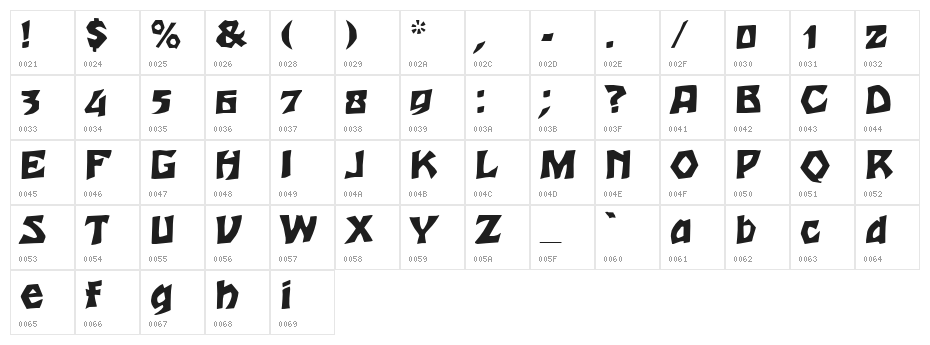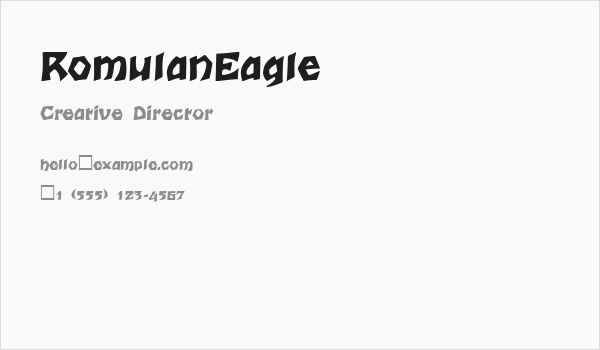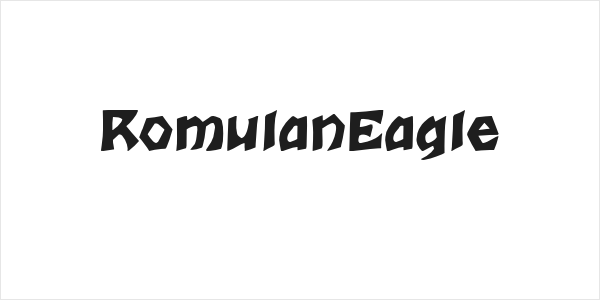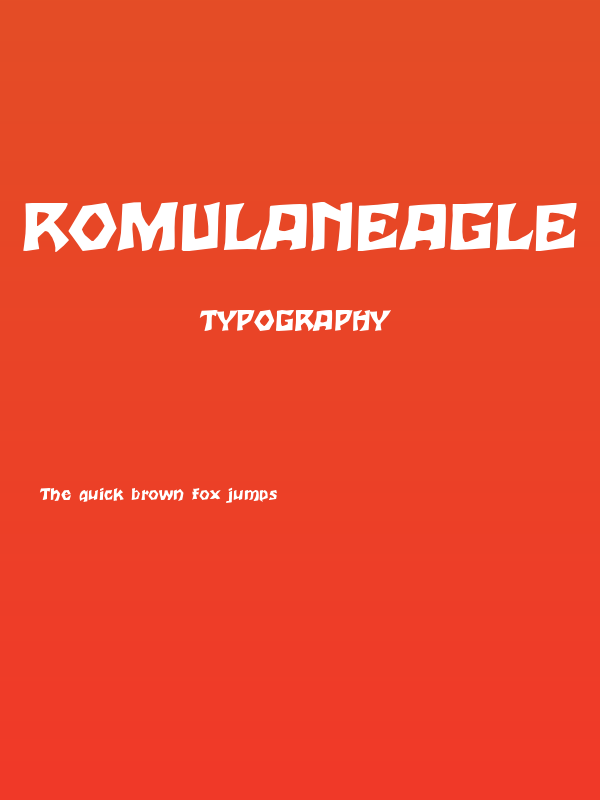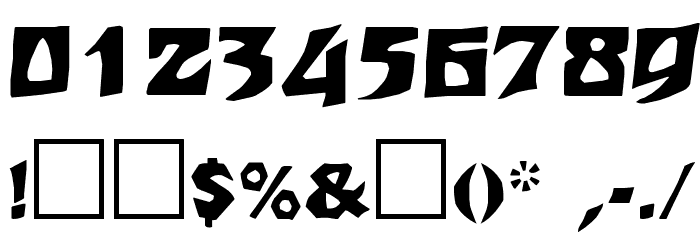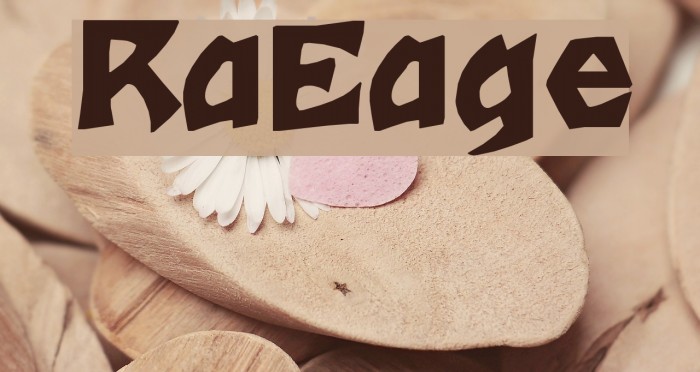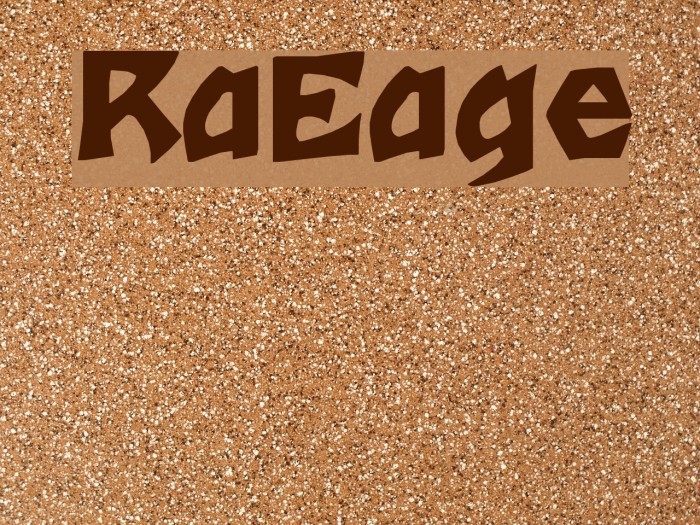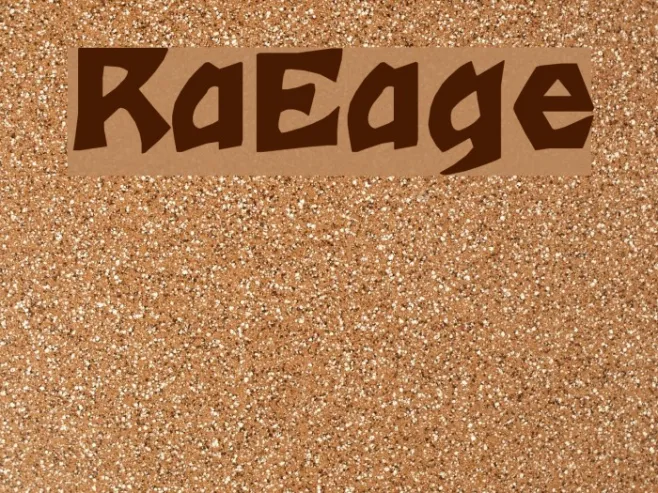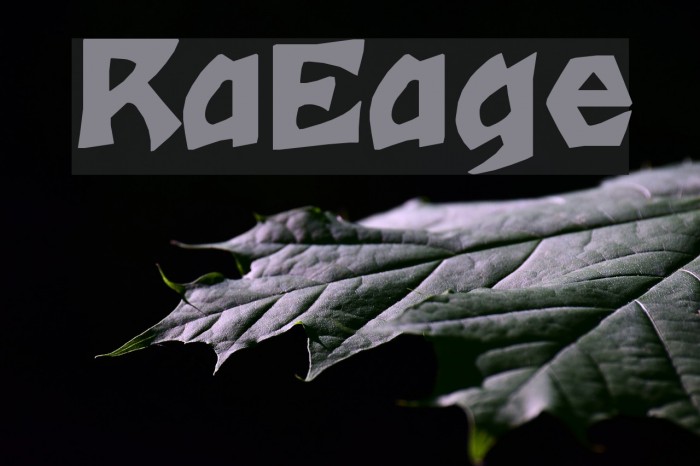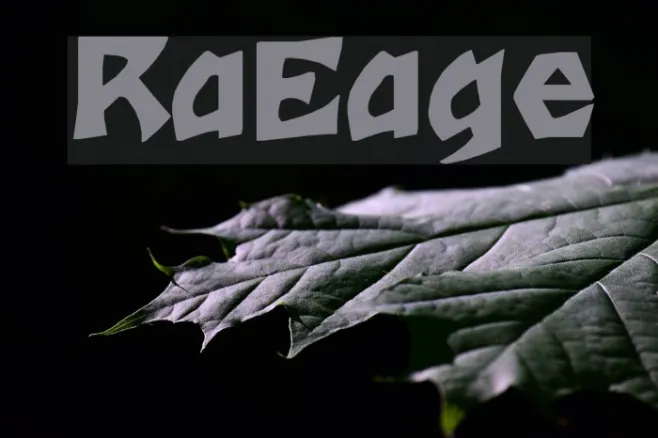
RomulanEagle Font
RomulanEagle Description
This font features a bold and angular design, characterized by sharp edges and a futuristic aesthetic. The letters are slightly slanted, giving a dynamic and aggressive feel. The uppercase and lowercase characters maintain a consistent style, with a unique geometric flair that resembles a blend of sci-fi and tribal influences. The numbers and special characters follow the same design principles, ensuring uniformity across all glyphs. This font is visually striking and commands attention, making it suitable for projects that require a bold statement.
| Overall Style | Futuristic, Tribal |
| Proposed Projects | Ideal for sci-fi themed posters, video game titles, and branding that requires a bold, standout look. |